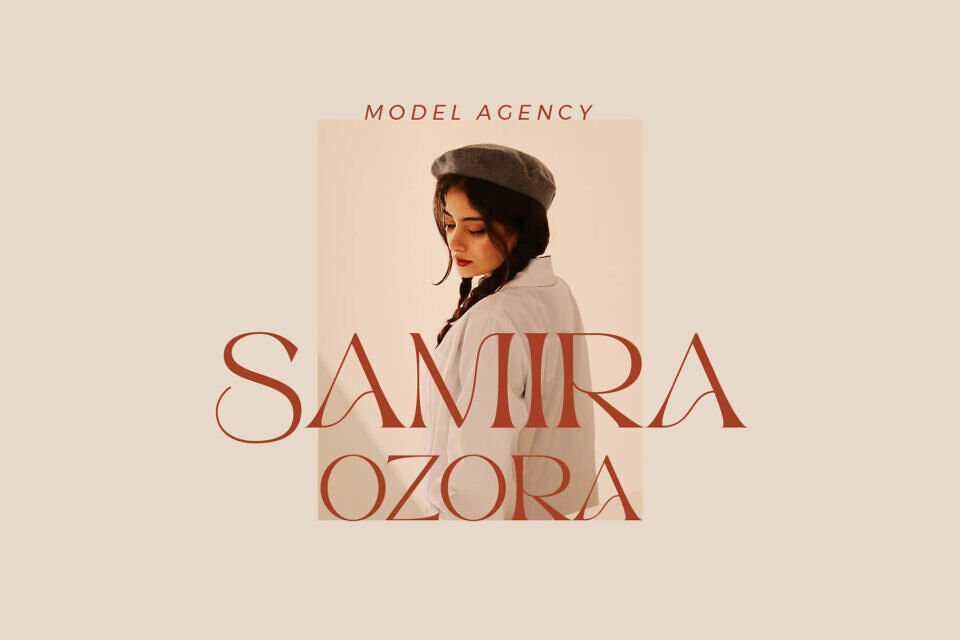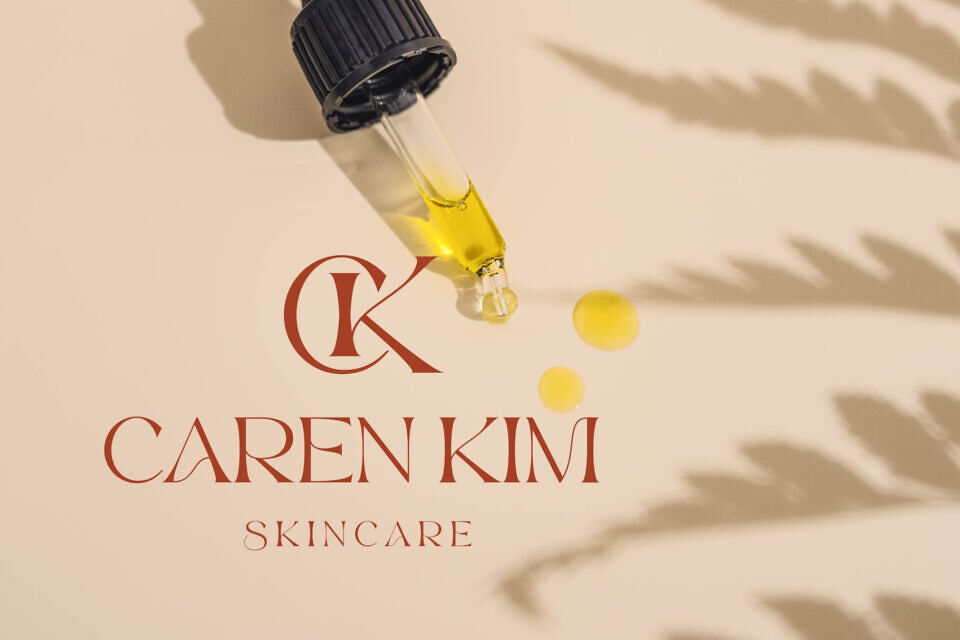
Maher Font
Maher is an elegant, minimalist typeface ideal for various design applications, including templates, brochures, videos, and branding materials like logos and advertisements.